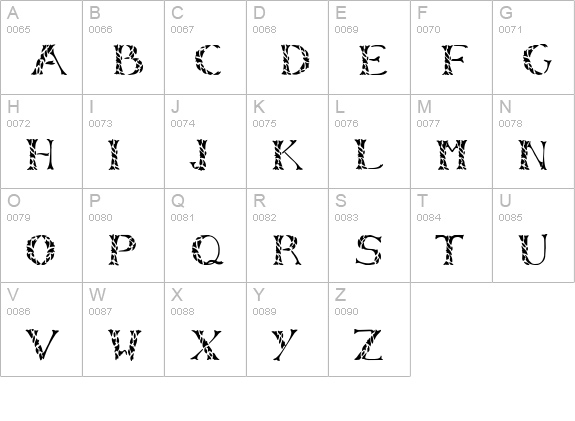
LeafyStencil Font Details
Introducing LeafyStencil, a captivating and versatile font that will add a touch of elegance to any design project. This unique typeface combines the beauty of leaf motifs with the boldness of stencil lettering, resulting in a visually striking and contemporary font. LeafyStencil boasts intricate detailing and carefully crafted curves, giving it a sophisticated and artistic appeal. Whether you're working on a logo, branding materials, invitations, or any other creative endeavor, this font will undoubtedly leave a lasting impression. What sets LeafyStencil apart is not only its stunning design, but also its accessibility. This font is available for free, allowing designers and creatives of all levels to embrace its charm without any limitations. Simply visit FontsMarket.com to easily and conveniently download LeafyStencil, and unlock its full potential in your next project. With its wide range of characters and glyphs, LeafyStencil offers endless possibilities for customization. From headline typography to decorative elements, this font will effortlessly elevate your designs and make them stand out from the crowd. Don't miss out on the opportunity to enhance your creative endeavors with LeafyStencil. Download this free font today from FontsMarket.com and let your imagination run wild.